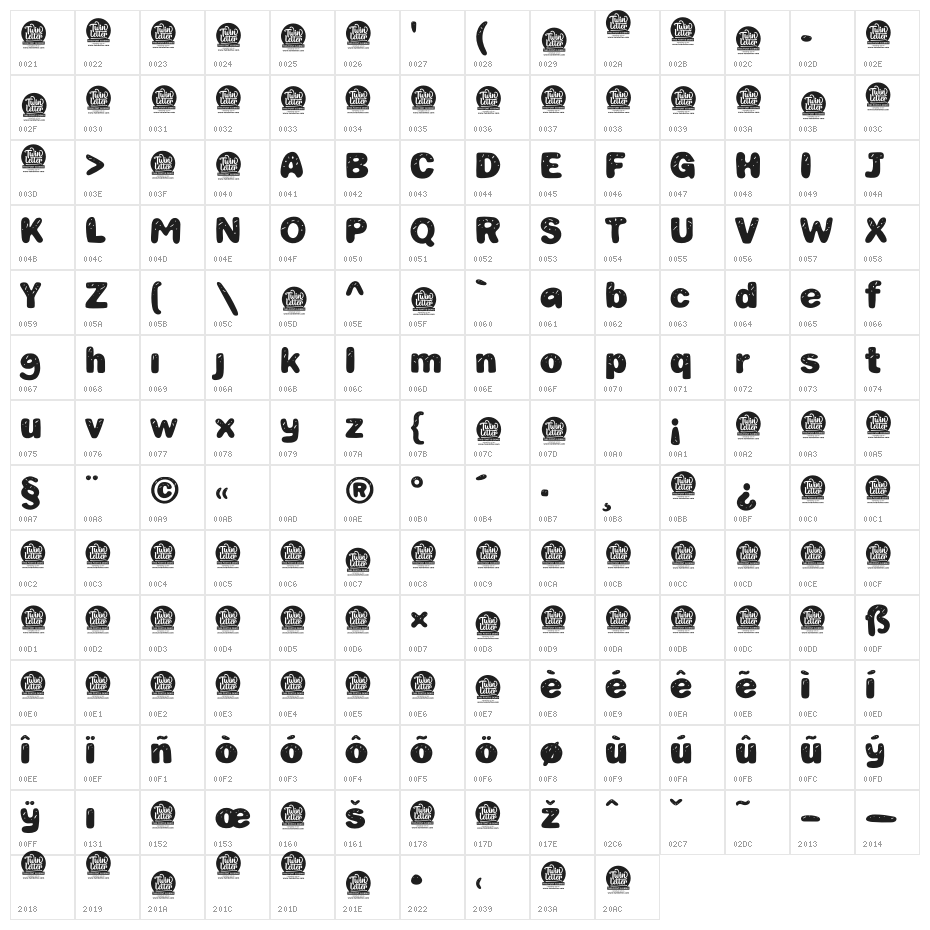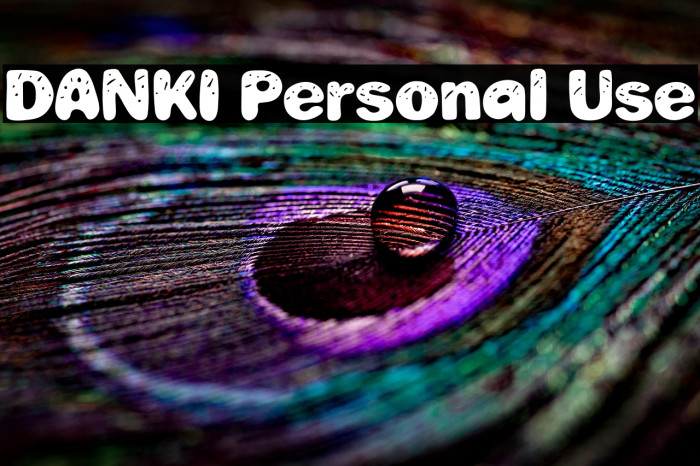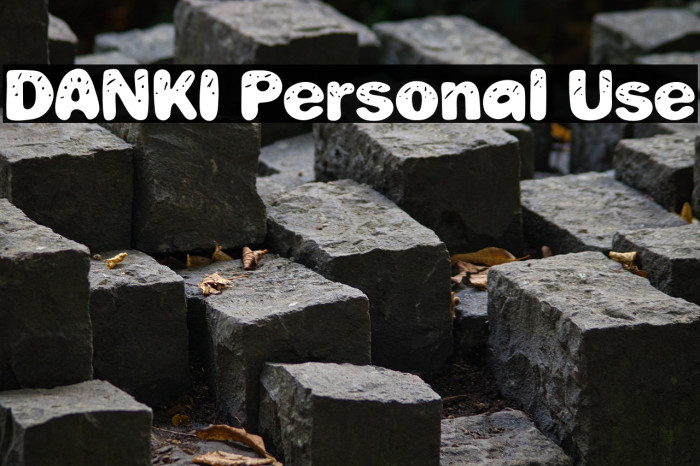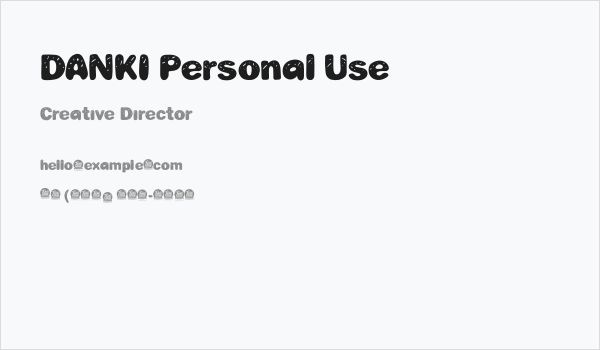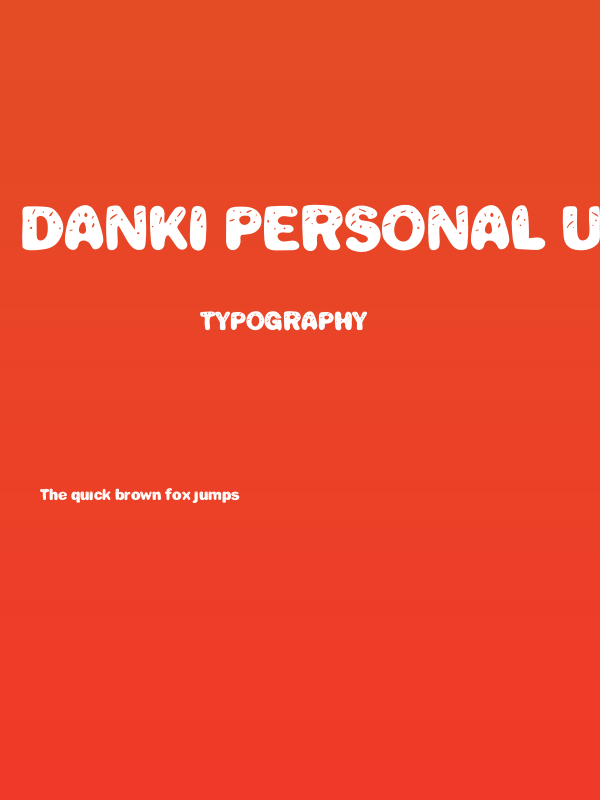
DANKI Personal Use Font
DANKI Personal Use Description
This playful and bold font features a bubbly, rounded style with a whimsical touch. The characters are thick and substantial, with a slightly irregular shape that adds a sense of fun and creativity. The font includes both uppercase and lowercase letters, numbers, and a selection of special characters. Its design is reminiscent of hand-drawn lettering, making it ideal for projects that require a friendly and approachable aesthetic. The font's unique style is perfect for capturing attention and conveying a sense of joy and playfulness.
| Overall Style | Playful, Whimsical, Fun |